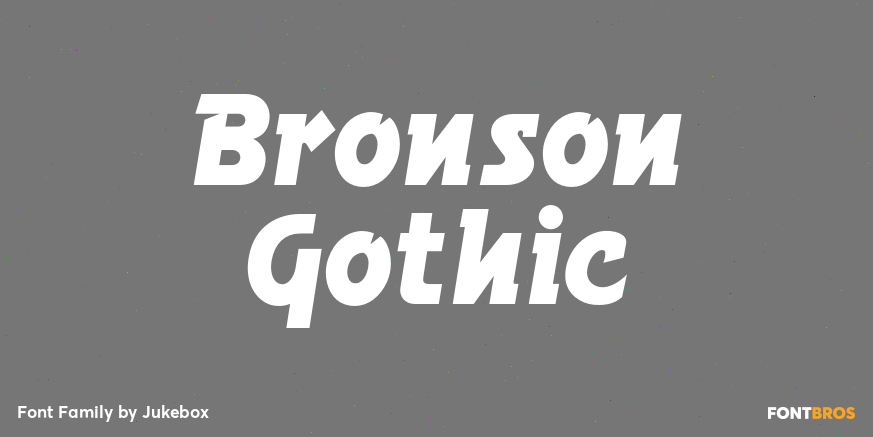
HomeFont BrosHandwrittenBronson Gothic HandwrittenSans SerifRetro (1936-1965) Bronson Gothic FacebookXPinterestWhatsApp 1 of 1 About Bronson Gothic is a cool, somewhat geometric  DOWNLOAD ON FONT BROSThis font is sold and delivered by Font Bros. Font Canyon may earn a commission if you buy through this link. People also explored You and Me Font Rafttel Font Hujan Tropis Font Caliste Font Red Bella Canvas 3005 V Neck Mockup Colbey Extra Light Font Montapallier Script Font Emy Slab Font Daylight Font 214 0 TagsBronson Gothic Font Previous articleScriptorama MarkdownNext articleAinslie Contrast LEAVE A REPLY Cancel reply Comment: Please enter your comment! Name:* Please enter your name here Email:* You have entered an incorrect email address! Please enter your email address here Website: Save my name, email, and website in this browser for the next time I comment. Personal Use Free Anggiana Personal Use Free Read more about this font Love Ya Personal Use Free Read more about this font Single Sleeve Personal Use Free Read more about this font Bright Dreams Personal Use Free Read more about this font BLOG Elegant Wedding Invitation Fonts – Handwritten & Script Fonts Elegant Wedding Invitation Fonts Your wedding day is one of the most important moments of your life, and every detail matters—including your invitation design. Our... The 10 Best Handwriting Fonts to Add Personality to Your Designs Exploring Font Trends Fonts That Capture the Spirit of New York City